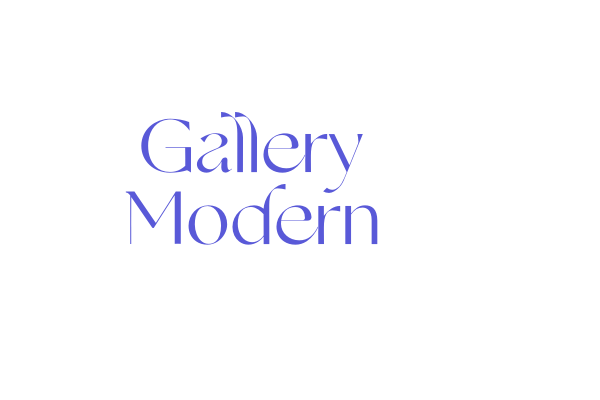
Gallery Modern is a sleek and sophisticated sans-serif font designed by New Tropical Design Studio. With a clean and modern style, this font is perfect for a wide range of design projects. Whether used for branding, editorial design, or web design, Gallery Modern adds a touch of elegance to any project.